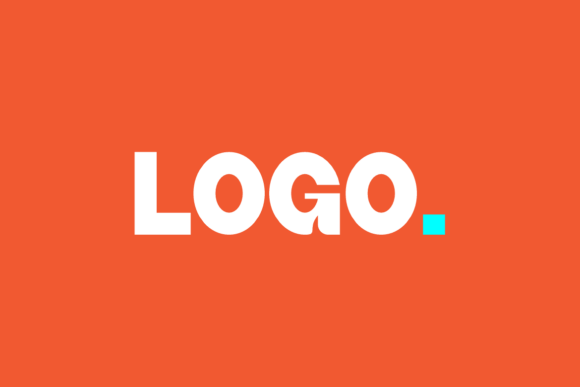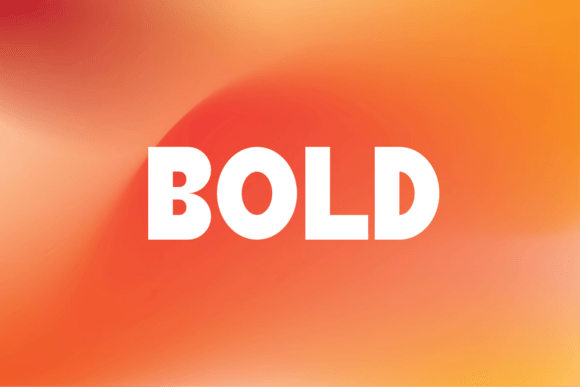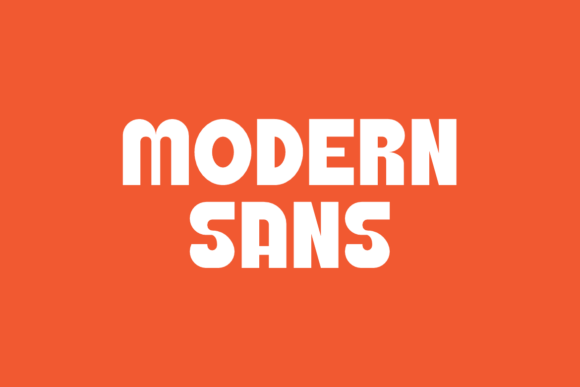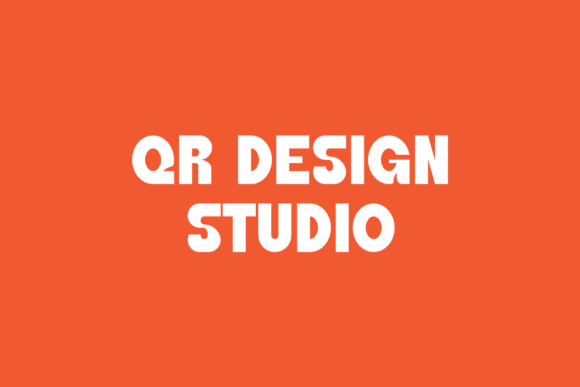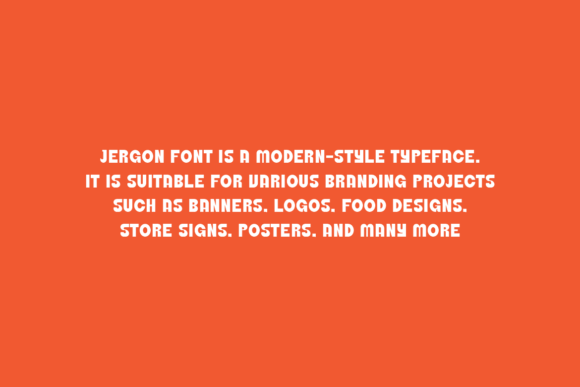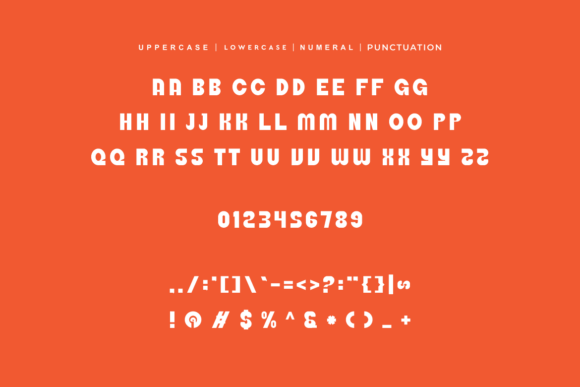
Introduction to Jergon Font
Have you ever been working on a creative project and suddenly, the perfect font appears out of nowhere, elevating your entire design? That’s exactly what happened to many designers who stumbled upon the Jergon Font. This bold and authentic display typeface has been making waves in the design community, and for good reason. With its versatility and high quality, it’s no wonder that Jergon Font has become a go-to design resource for creatives around the world.
Whether you’re working on a sports design, a logo, or any other branding project, Jergon Font is sure to bring a touch of sophistication and elegance to your work. Its transparent background and striking letterforms make it a valuable asset for any designer looking to add a bit of flair to their designs.
Key Features of Jergon Font
- High-quality design resource with a unique, artistic style, ideal for creative projects.
- Designed to be highly legible, with a clear and crisp appearance at various resolutions, including 72 dpi and 300 dpi.
- Perfect for designers seeking a distinctive and eye-catching font for their next project.
Honest Review: Jergon Font
- ✨ High quality: The Jergon Font has a crisp, clear design that’s perfect for digital use.
- ✨ Versatile: The font is suitable for various creative projects, from web design to print materials.
- ✨ Easy to use: The font is highly legible and easy to read, making it a great choice for any design project.
- ⚠️ Limited customization: While the font is high quality, it’s not possible to customize it to a great extent, which might be a drawback for some designers.
- ⚠️ Transparency: Be aware that the font has a transparent background, which might not be suitable for all design projects.
Overall, I’m impressed with the Jergon Font. It’s a solid design resource that’s perfect for any creative project. While it has some limitations, it’s a great choice for designers looking for a high-quality, modern font. I’d definitely recommend it for any design project that requires a unique and modern touch.
Jergon Font is a high-quality design resource perfect for creative projects that require a unique touch. With a transparent background, this font can be easily integrated into various design platforms.
Getting the Most Out of Jergon Font
For optimal results, use Jergon Font in conjunction with a high-quality image or background. Experiment with different font sizes, colors, and arrangements to achieve the desired effect.
Jergon Font is ideal for creative projects, such as logos, branding materials, and marketing collateral. Its unique design makes it perfect for grabbing attention and conveying a message.
Montserrat is a popular font among designers, known for its high quality and versatility. It’s perfect for use in creative projects that require a modern and urban feel, and can be easily customized to fit your design needs. Montserrat is available for free download and is a great alternative to Jergon Font for designers who need a clean and sophisticated look.